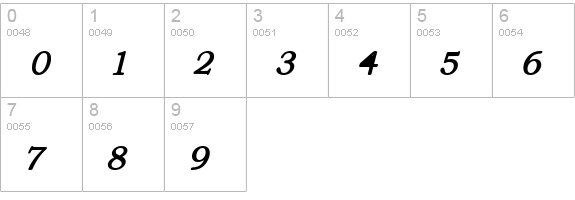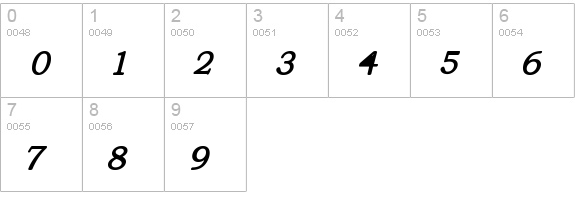
Text Serif Italic HPLHS Font Details
Text Serif Italic HPLHS is a distinctive, italic variant in the Text typeface family \xE2\x80\x94 well suited to design and typography projects.
Introducing the exquisite Text Serif Italic HPLHS font - the perfect blend of elegance and sophistication. Designed with utmost attention to detail, this font is a true masterpiece that will captivate your audience and elevate your creative projects to new heights. With its delicate and slanted letterforms, Text Serif Italic HPLHS exudes a sense of refined grace and timeless beauty. Each character is meticulously crafted, showcasing a harmonious balance between classic serifs and a subtle italic flair. This unique fusion creates a visually stunning typeface that effortlessly conveys a sense of elegance, making it ideal for a wide range of design purposes. Whether you're working on branding, editorial design, invitations, or any other project that requires a touch of sophistication, Text Serif Italic HPLHS is the perfect choice. Its versatility allows it to seamlessly adapt to various design styles and themes, adding a touch of class and professionalism to any composition. One of the most remarkable aspects of Text Serif Italic HPLHS is that it is available free of charge. That's right – this exceptional font can be yours without spending a dime. Simply head over to FontsMarket.com and download this font to unlock its full potential. Whether you're a professional designer or a passionate enthusiast, this generosity allows you to harness the power of Text Serif Italic HPLHS and create stunning designs without breaking the bank. So why wait? Unleash your creativity and embrace the beauty of Text Serif Italic HPLHS. With its free availability and stunning design, this font is a must-have in your typographic arsenal. Don't miss out on the opportunity to elevate your designs and make a lasting impression. Download Text Serif Italic HPLHS today and embark on a creative journey like no other.